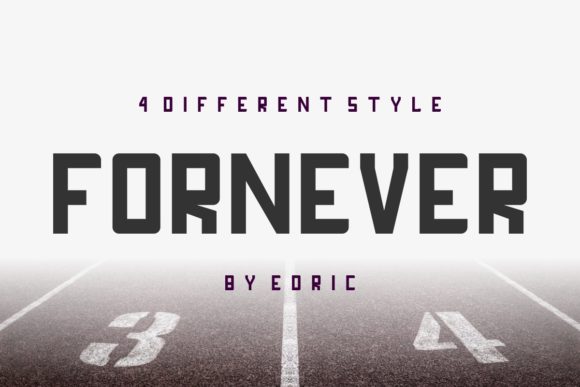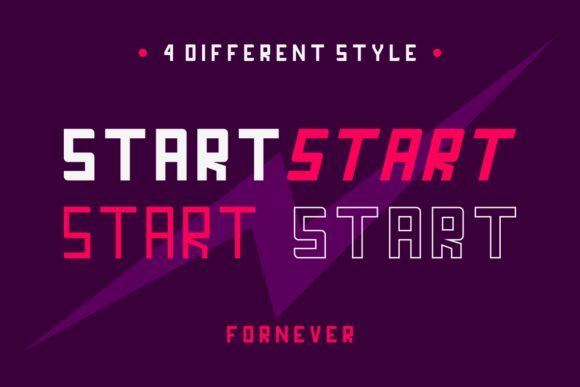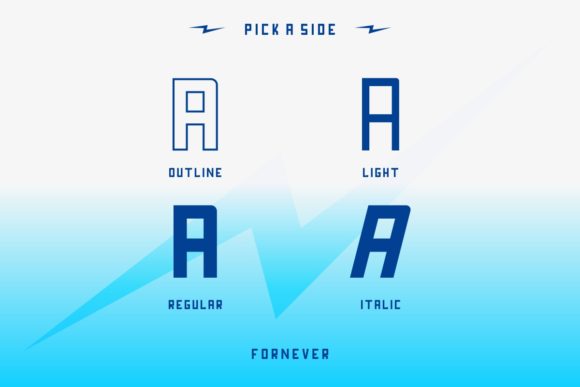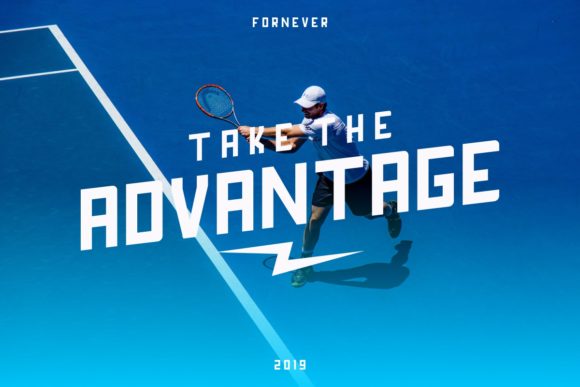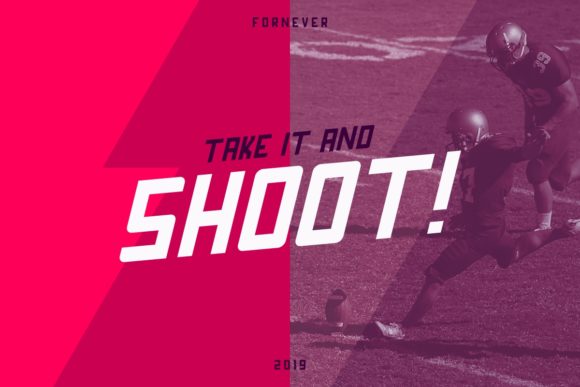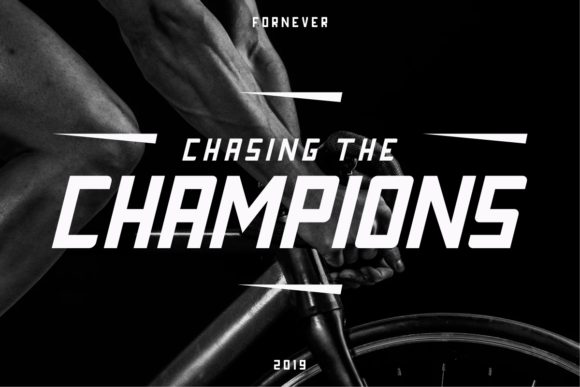
Discover the Unique Charm of Fornever Font: A Bold and Fun Sans Serif Font
In the world of typography, fonts play a crucial role in conveying messages, expressing emotions, and creating visual identities. For designers and crafters, finding the perfect font can be a daunting task, especially when looking for something that stands out from the crowd. This is where Fornever Font comes in – a bold and fun sans serif font with a contemporary twist that is sure to capture your heart.
What is Fornever Font?
Fornever Font is a modern sans serif font designed to make a statement. Its clean lines, rounded edges, and unique charm make it perfect for a wide range of design projects, from branding and advertising to crafting and DIY projects. This font is not just a means of communication; it’s an expression of personality and style.
Key Features of Fornever Font
• Bold and Fun: Fornever Font is designed to be attention-grabbing and fun. Its bold strokes and playful vibe make it perfect for headlines, titles, and any design element that needs to stand out.
• Sans Serif: The clean and minimalist sans serif design ensures that the font is easy to read and versatile enough to fit into various design contexts.
• Contemporary Twist: What sets Fornever Font apart is its contemporary twist. It combines traditional sans serif elements with modern flair, making it a unique addition to any design project.
• Unique Charm: The font’s unique charm lies in its ability to convey a sense of friendliness and approachability while maintaining a professional look.
Uses of Fornever Font
Fornever Font’s versatility makes it suitable for a variety of projects, including:
• Branding and Logo Design: Create memorable brand identities with Fornever Font’s bold and fun aesthetic.
• Advertising and Marketing Materials: Use the font to create eye-catching advertisements, flyers, and brochures that demand attention.
• Crafting and DIY Projects: Add a personal touch to your crafting and DIY projects with a font that speaks to a younger, more contemporary audience.
• Digital Content: Enhance your website, blog, or social media graphics with a modern font that is sure to engage your audience.
Why Choose Fornever Font?
With so many fonts available, why choose Fornever Font? Here are a few reasons:
• Uniqueness: Fornever Font offers a fresh perspective in the world of sans serif fonts, making your designs instantly recognizable.
• Versatility: Its clean design and contemporary twist allow it to be used across various platforms and design materials.
• Emotional Connection: The font’s friendly and approachable vibe helps create an emotional connection with your audience, making your designs more impactful.
How to Use Fornever Font Effectively
To make the most of Fornever Font, consider the following tips:
• Pair it Wisely: Combine Fornever Font with complementary fonts to create visual interest and hierarchy in your designs.
• Experiment with Sizes: Play with different font sizes to emphasize certain elements and create a dynamic design.
• Use Color Strategically: Select colors that align with your brand or design theme to enhance the font’s impact.
Fornever Font is more than just a font – it’s a design statement. Its bold and fun sans serif style, combined with a contemporary twist, makes it a valuable asset for designers and crafters looking to add a unique touch to their projects. Whether you’re working on branding, advertising, crafting, or digital content, Fornever Font is sure to fall into your heart with its irresistible charm. So, why settle for ordinary when you can make a statement with Fornever Font?
Embrace the unique charm of Fornever Font and elevate your designs to a whole new level. Discover the difference that a bold, fun, and contemporary font can make in your creative projects.